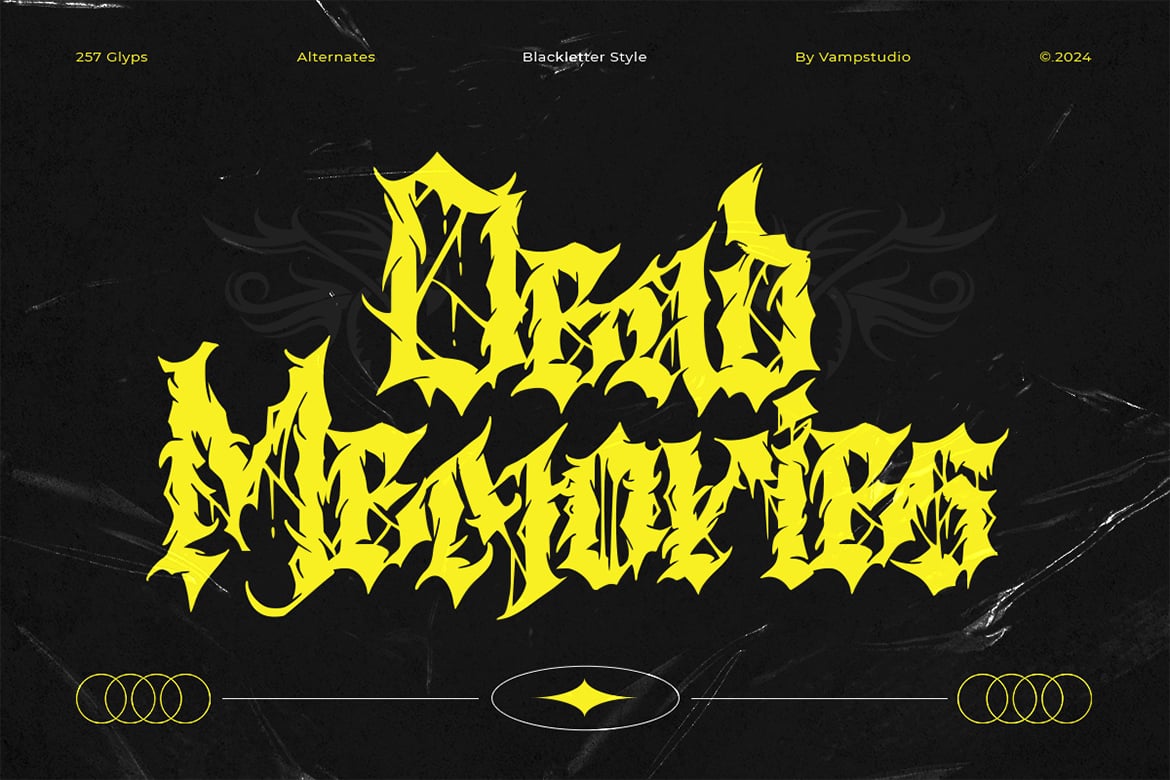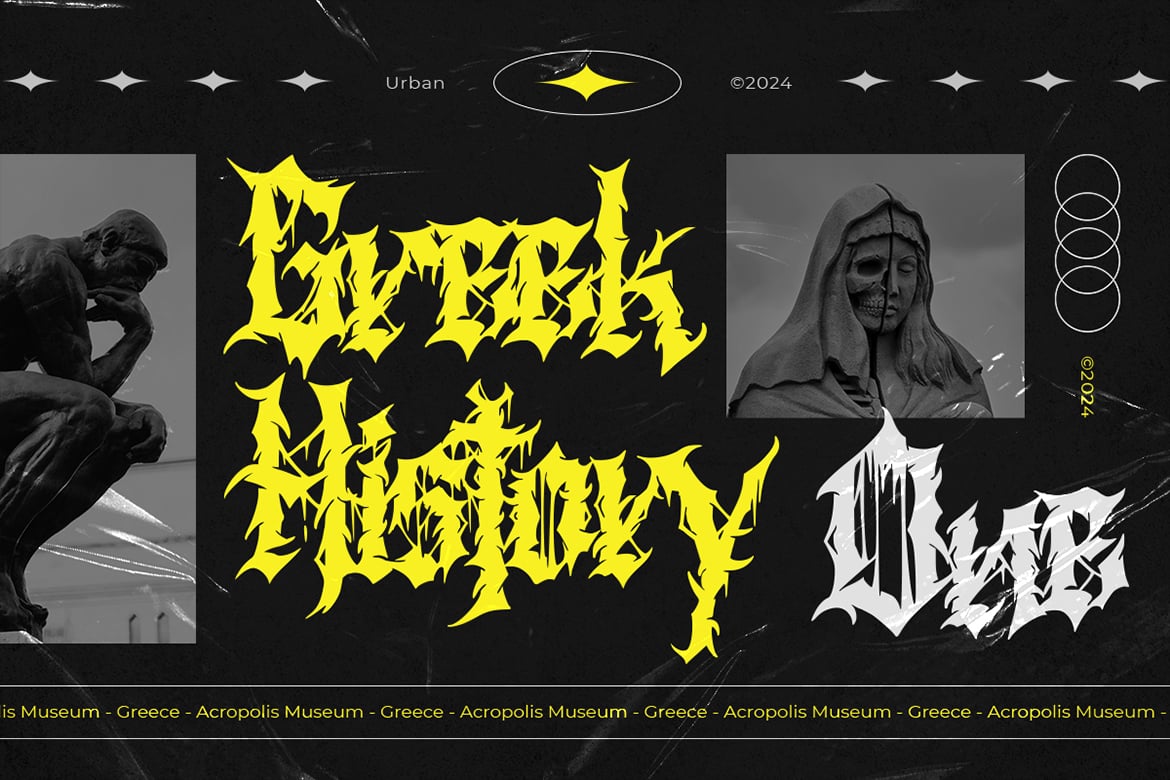
Dead Memories – Extreme Blackletter Display Font
Dead Memories – Extreme Blackletter Display Font is a versatile typeface ideal for various projects, including logos, branding, posters, blog headers, advertisements. The free version includes a full set of uppercase and lowercase letters, available in OTF format.